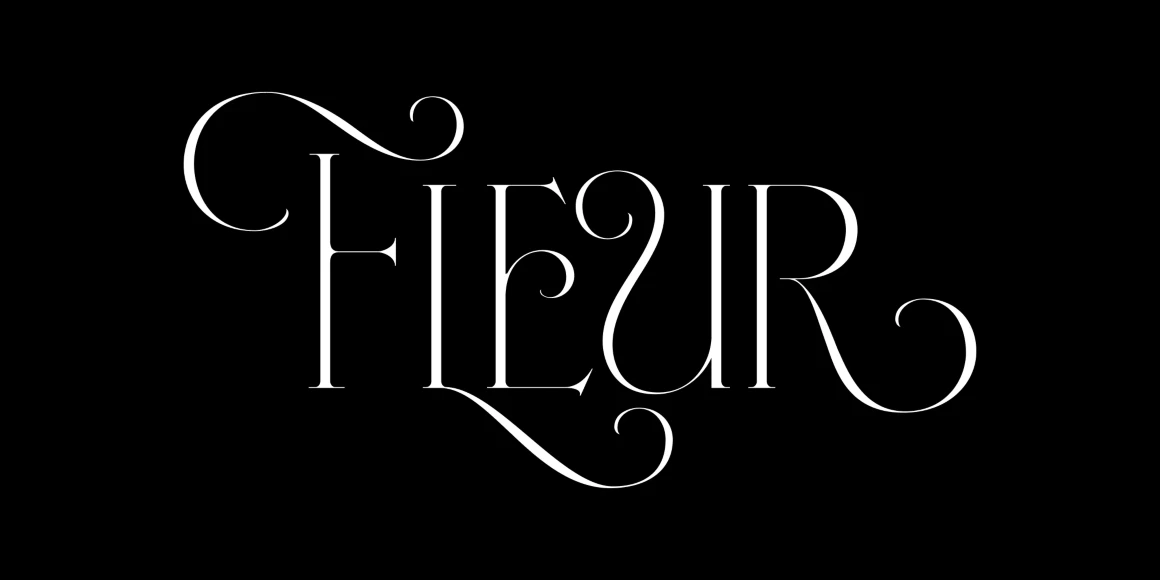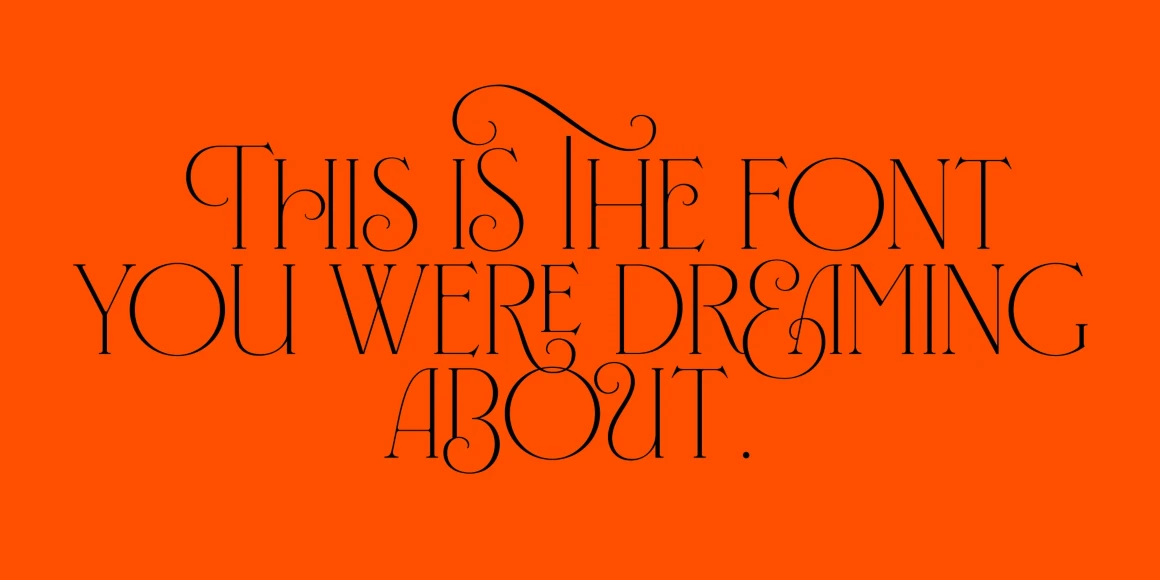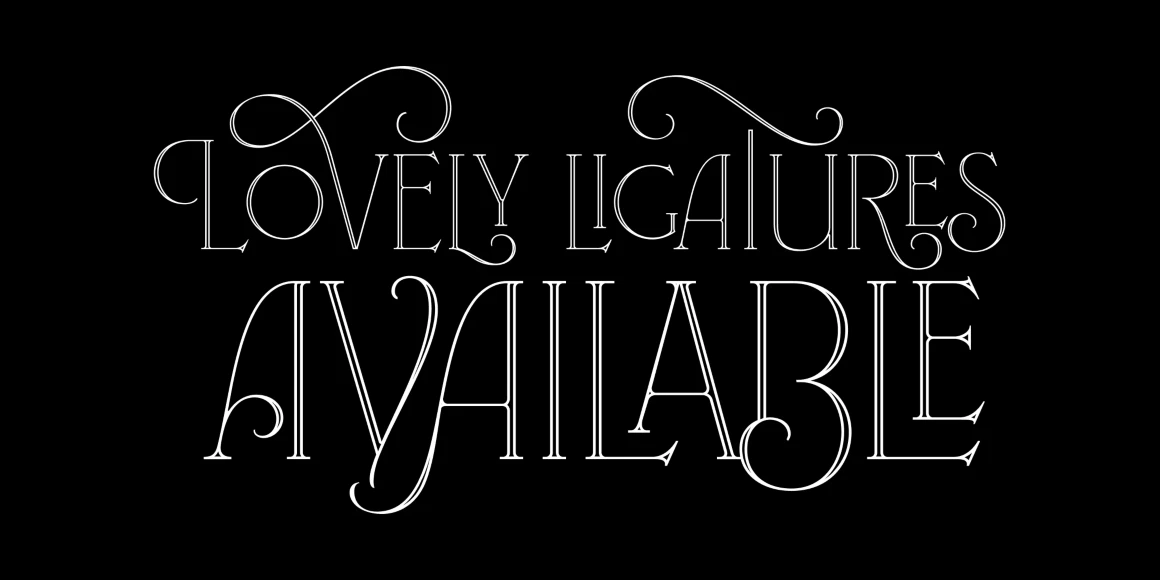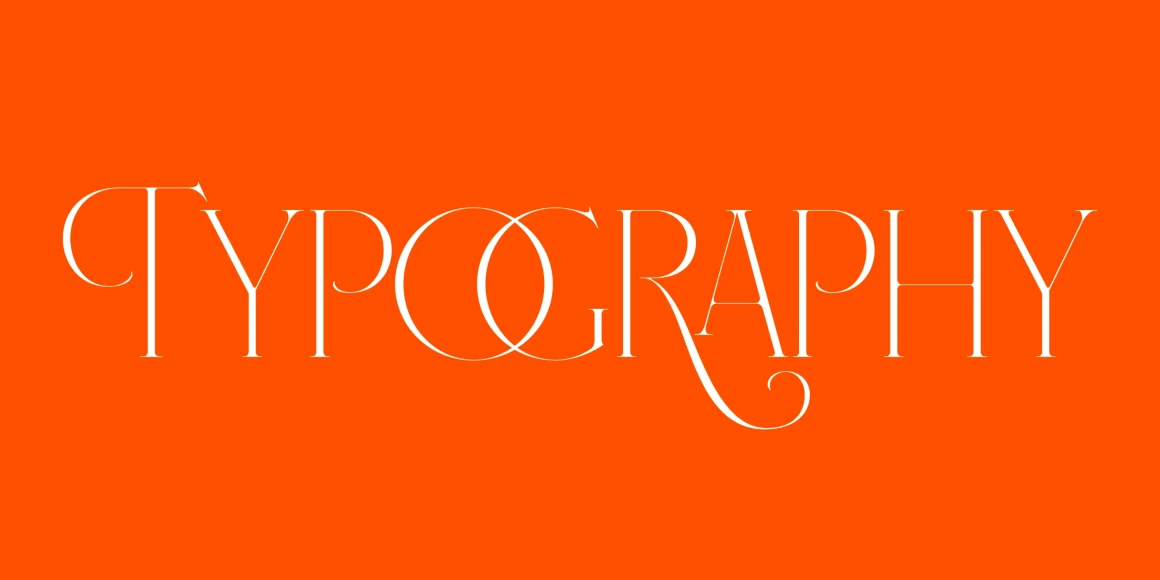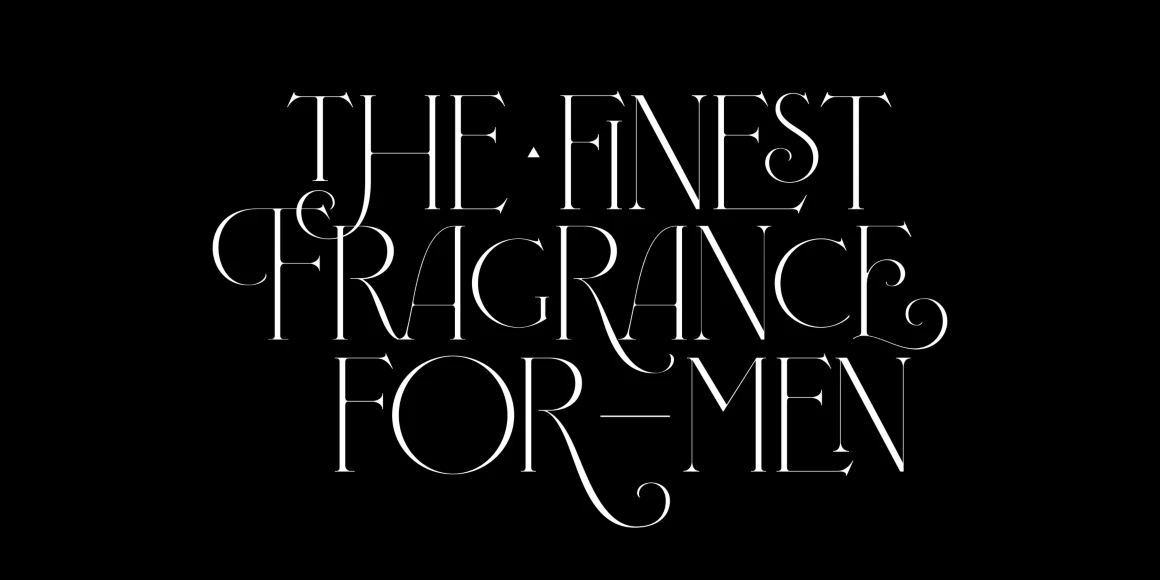
Fleur
From Sproviero Type
Fleur is a luxurious all-caps display typeface inspired by the dreamy opulence of Paris and the ornate beauty of the Palais Garnier. With Art Nouveau fluidity, Didone structure, and a wealth of interlacing ligatures and swash alternates, Fleur delivers operatic elegance and expressive flair to any design. Ideal for perfume labels, fashion editorials, book covers, boutique logos, and storefronts — this font family was made to be admired. Use Fleur and profitez de la vie.
Designed by Maximiliano Sproviero